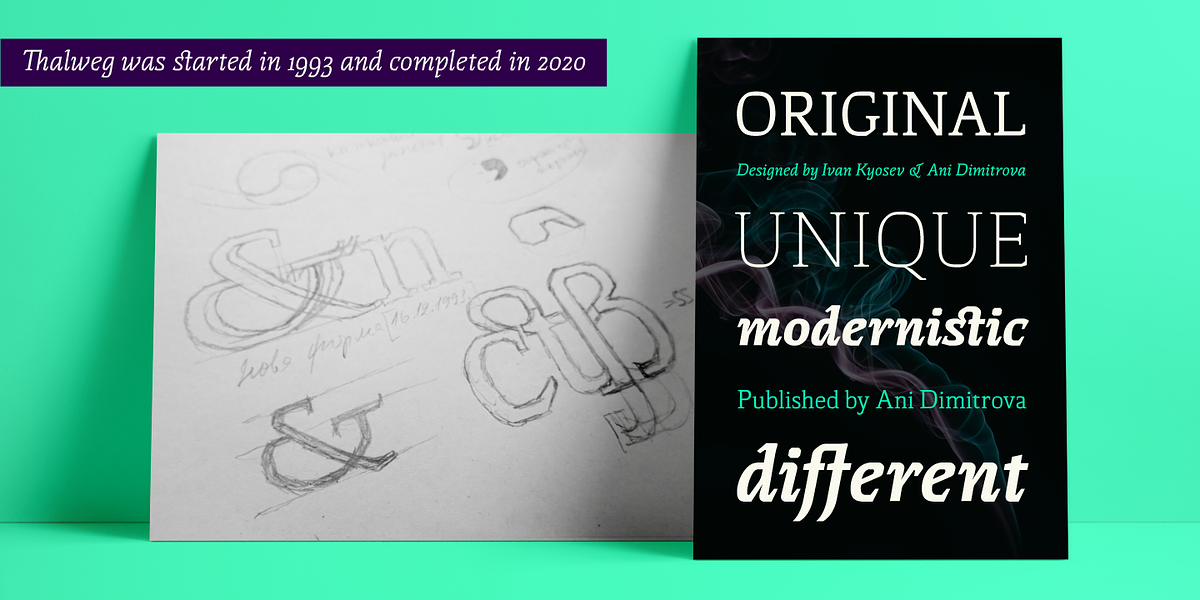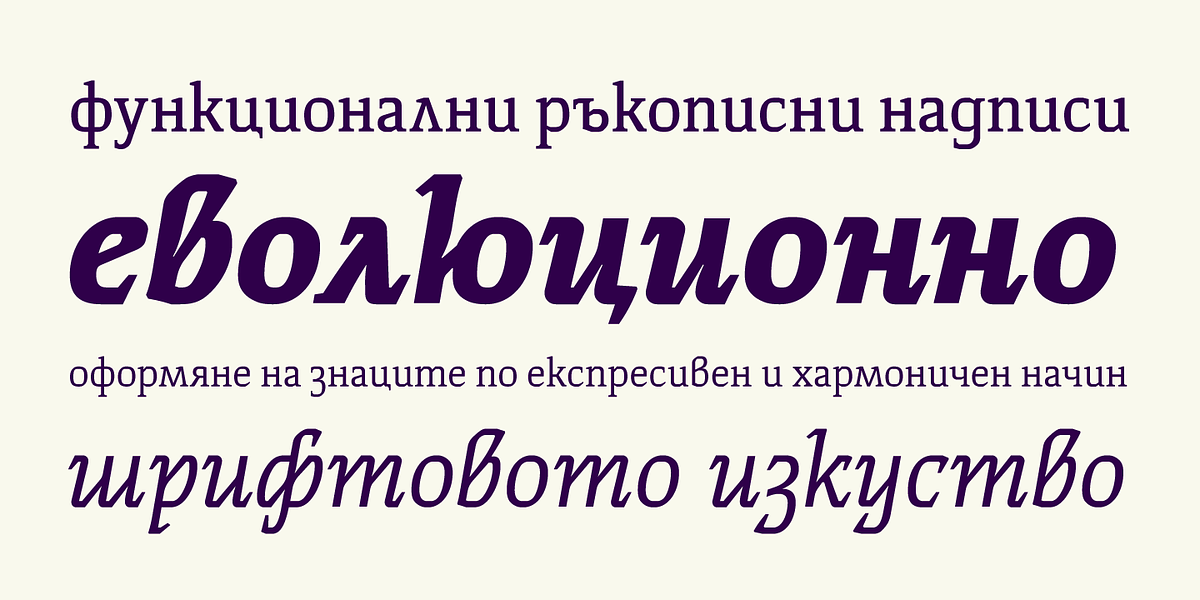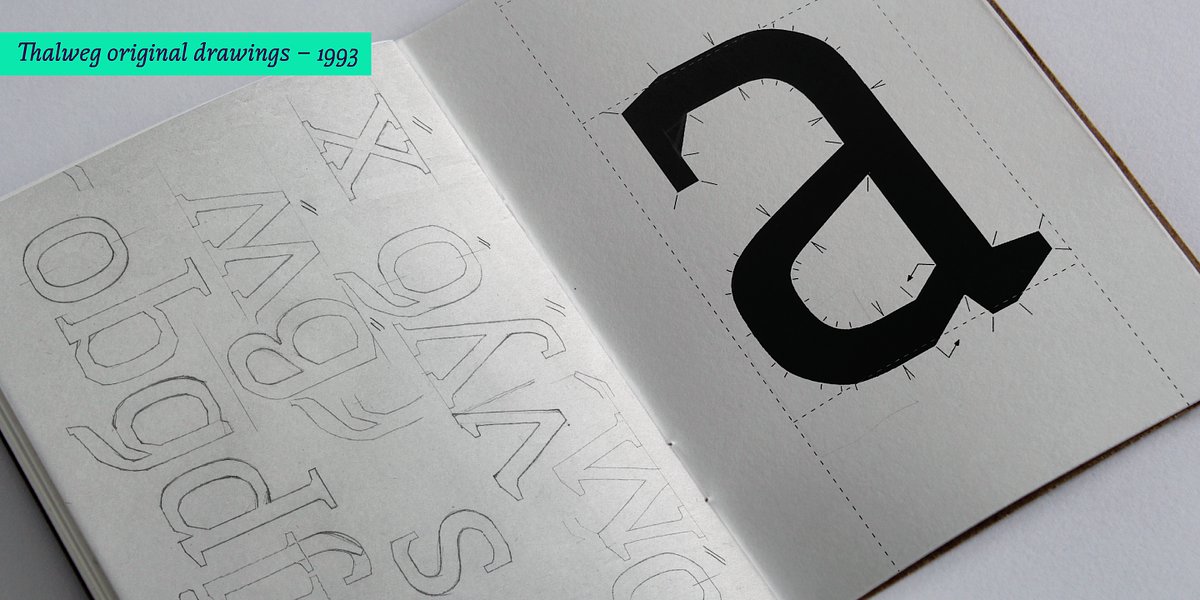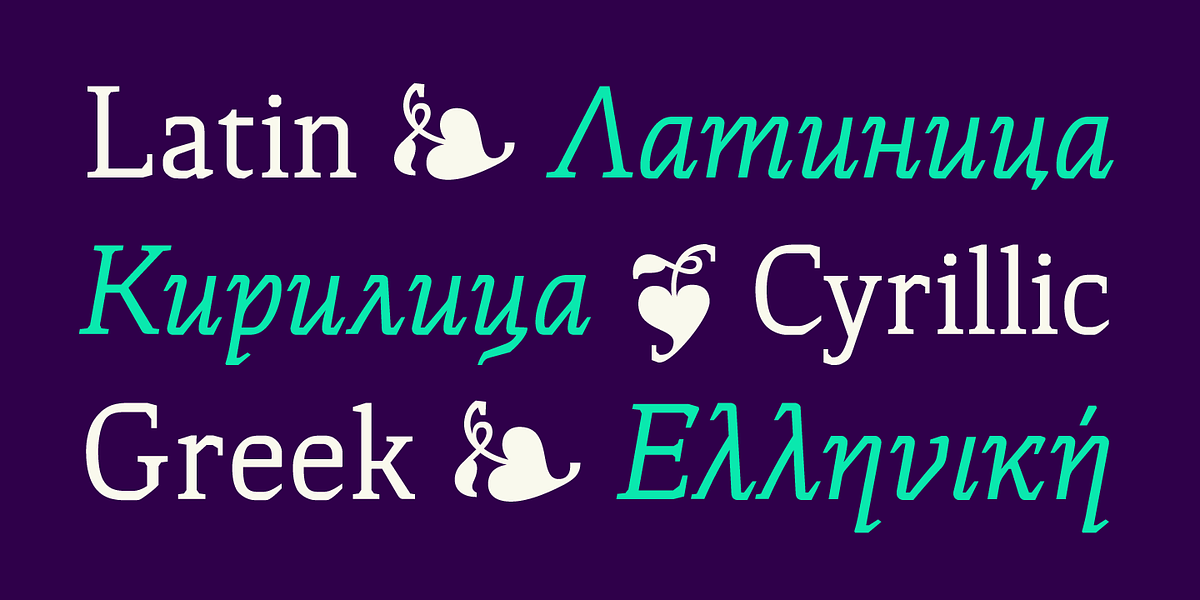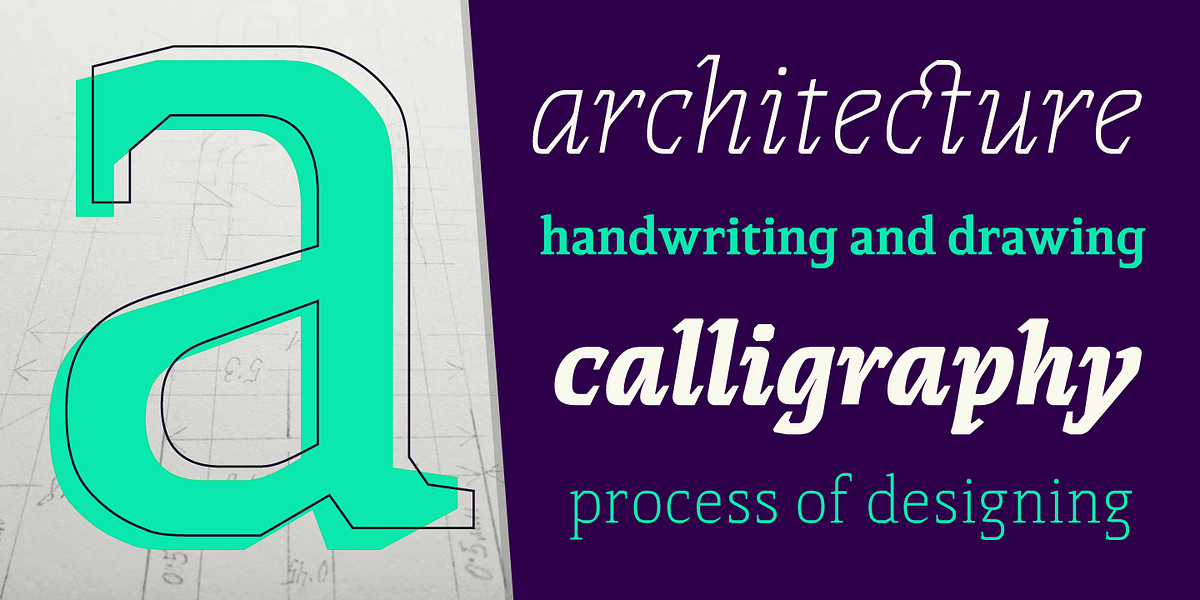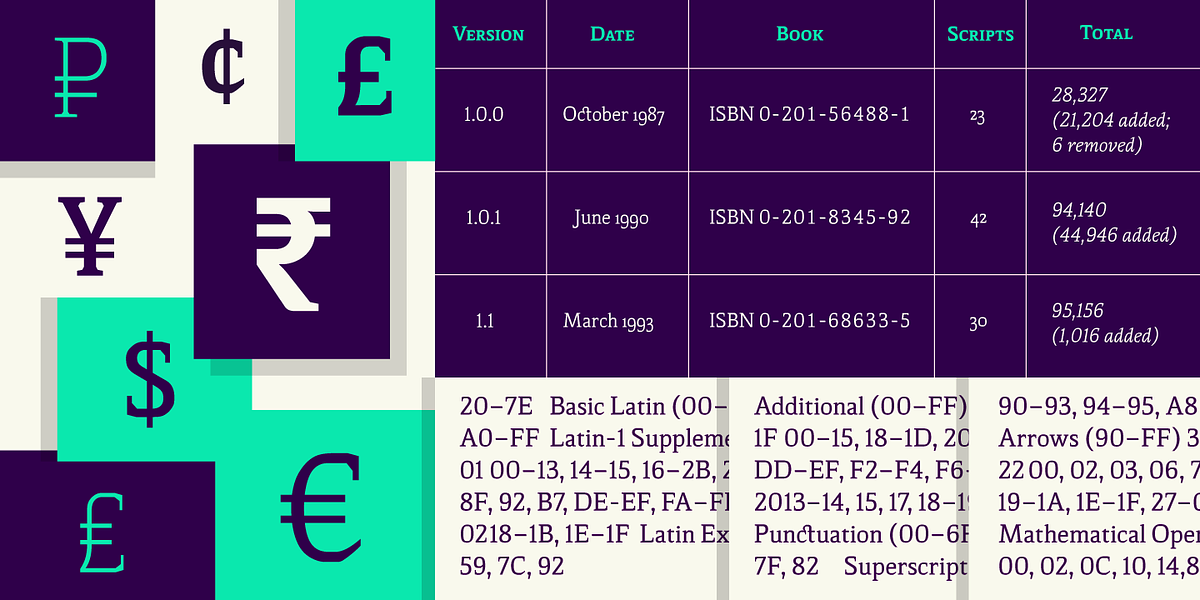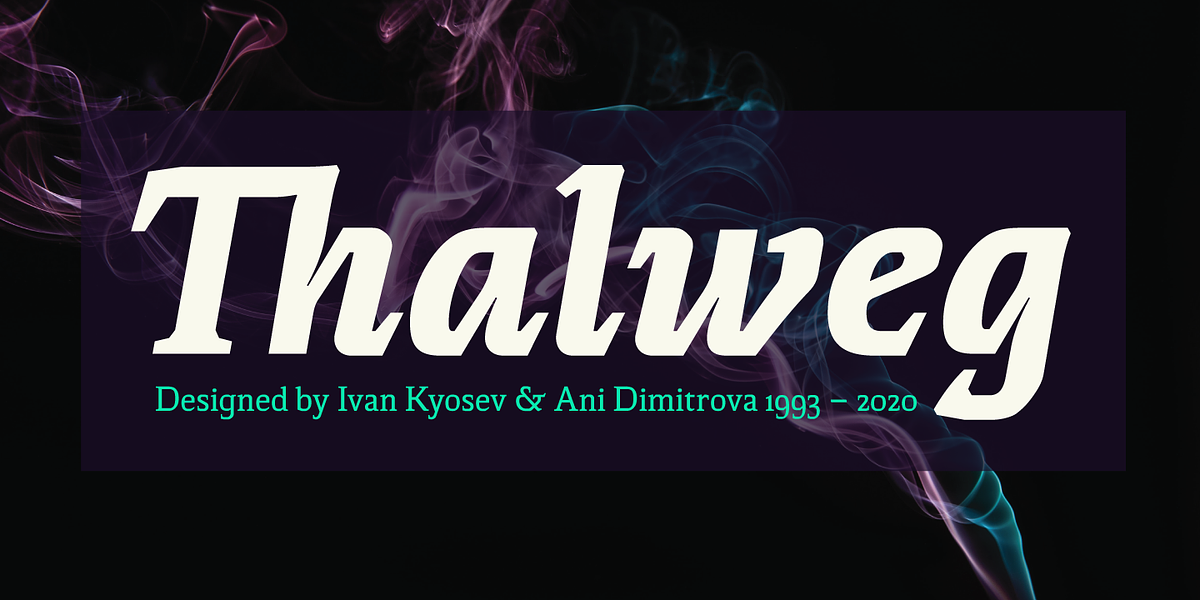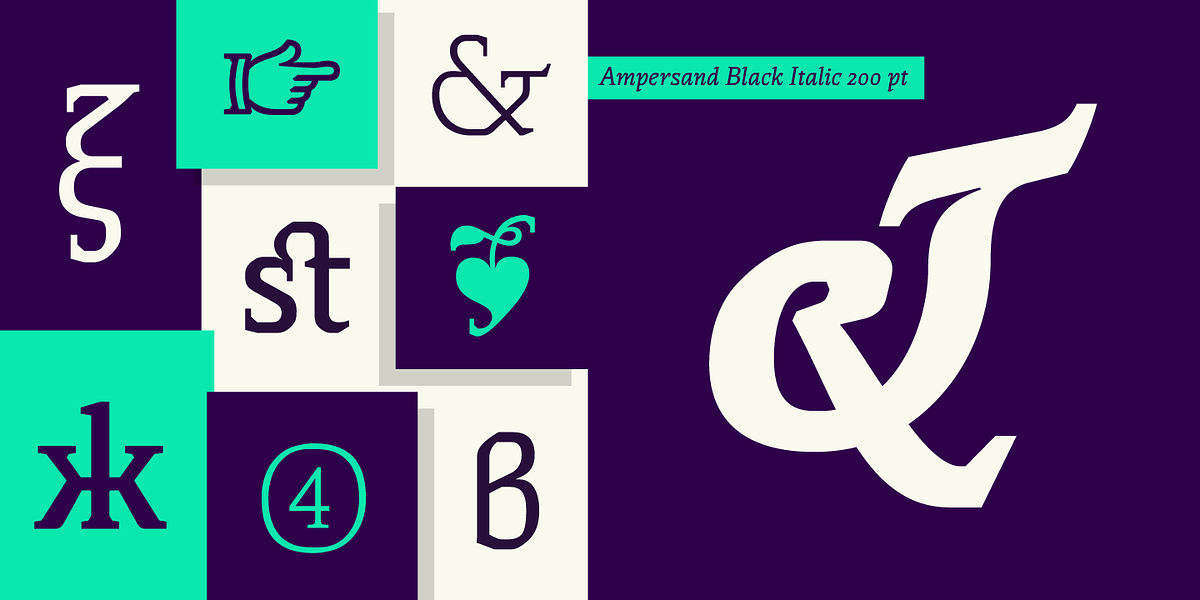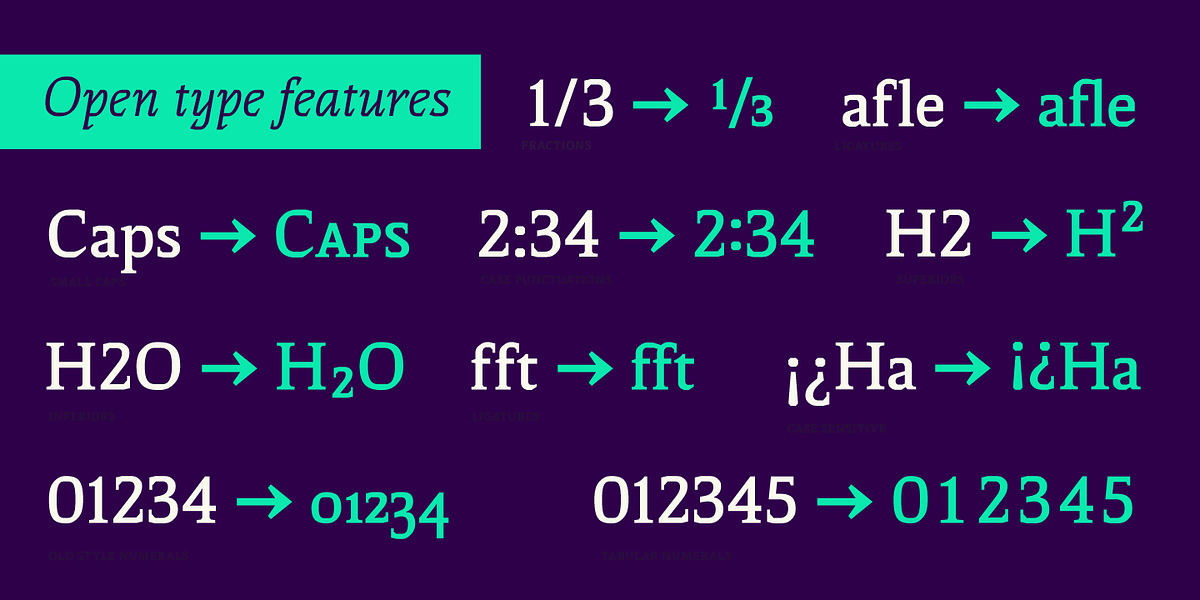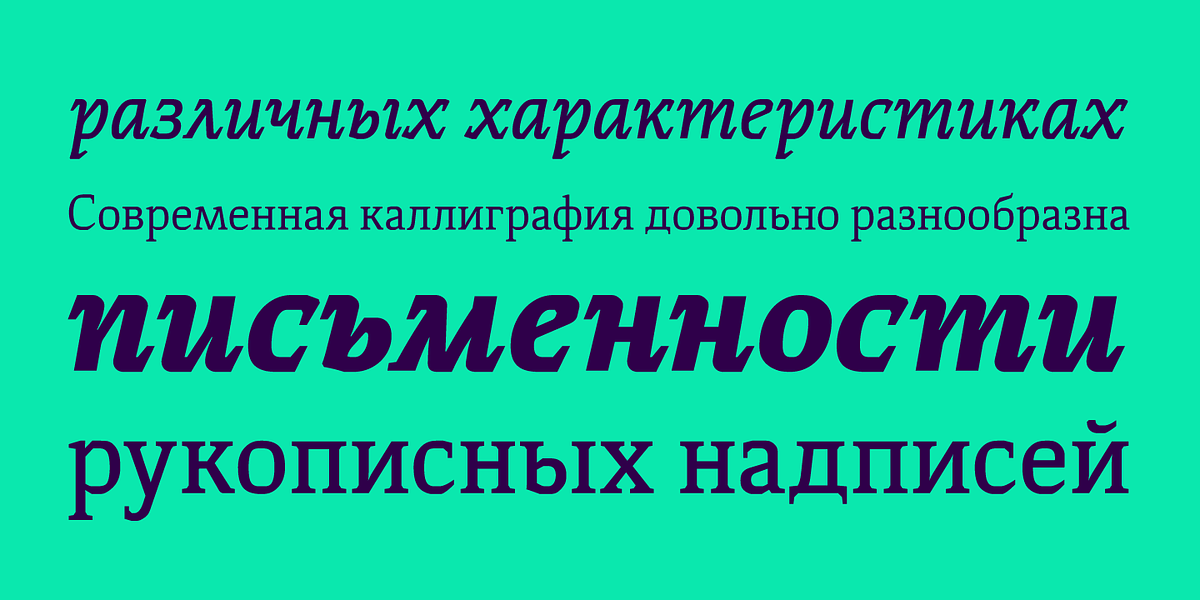
Thalweg
Thalweg is a transitional serif typeface originally designed by Bulgarian artist Ivan Kyosev in 1993. The font was digitally revived and expanded by Ani Dimitrova in 2020. It features a calligraphic influence with angular details. Thalweg offers 16 weights ranging from Thin to Black, including italic and small caps versions. The typeface supports Latin, Cyrillic, and Greek scripts and includes extensive OpenType features for professional typography.